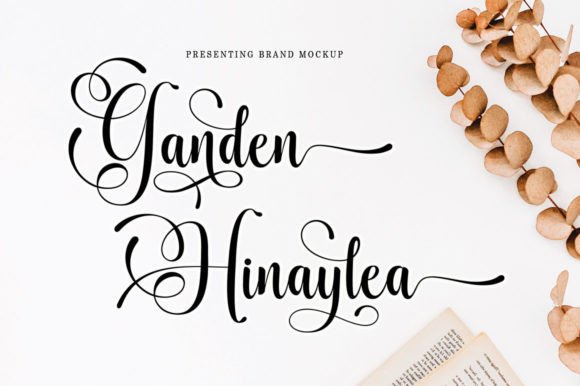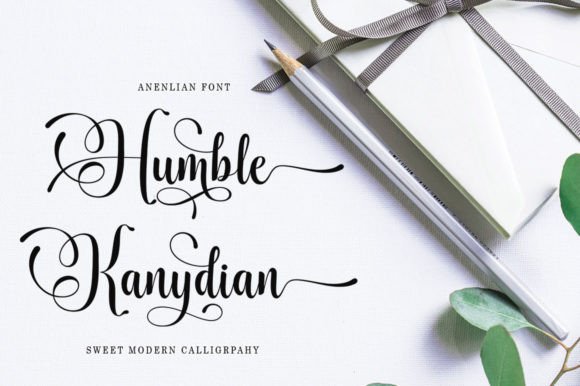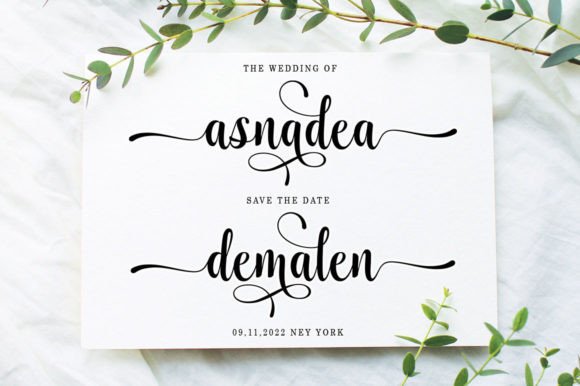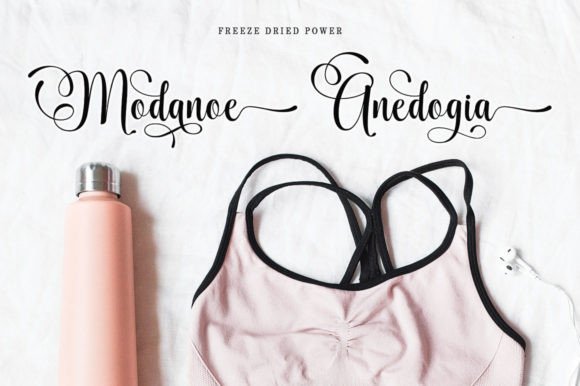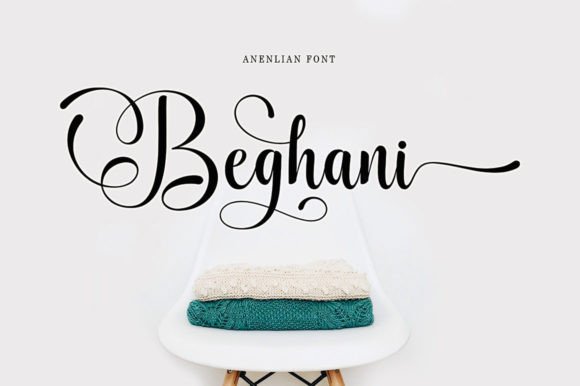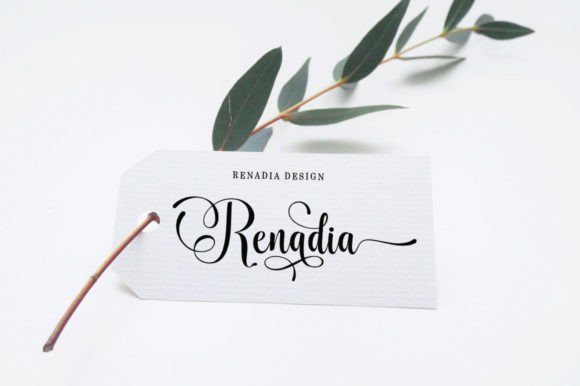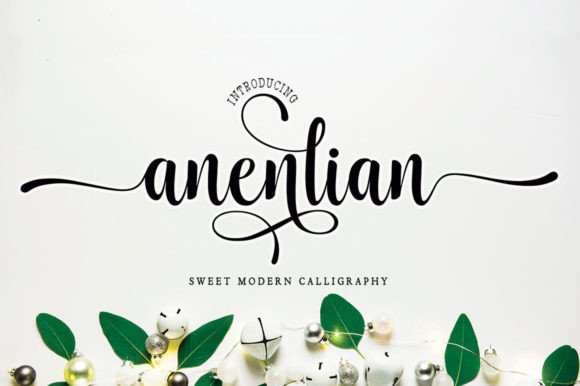
The Designer’s Delight: Anenlian Font
Ah, the quest for the perfect font! I recall a particularly frustrating project where I spent hours searching for a script font that would elevate my design from meh to mesmerizing. My client wanted a luxurious feel, but everything I found was either too bland or too over-the-top. That’s when I stumbled upon Anenlian, a dazzling script font that has since become a staple in my font library.
So, what makes Anenlian so special? Let’s dive into the good stuff!
• ✨ Exquisite craftsmanship: Anenlian is meticulously designed, with intricate details that make it a joy to use.
• ✅ Versatility: Whether you’re working on a branding project, a wedding invitation, or a social media graphic, Anenlian adapts seamlessly.
• 💡 PUA encoded: This means you can access all glyphs and swashes with ease, giving you endless creative possibilities.
Of course, no font is perfect, and Anenlian has a few minor quirks:
• 🤔 Occasional kerning issues: As with any script font, you might need to adjust kerning for optimal results.
• ⚠️ Limited multilingual support: While Anenlian covers many languages, it might not support every character or script.
The Story Behind Anenlian
While the actual origins of Anenlian are unclear, it’s said to have been crafted by a team of designers passionate about typography. Their goal was to create a font that would inspire creativity and add a touch of luxury to any design. And, judging by the font’s popularity, I’d say they’ve succeeded!
Is Anenlian suitable for body text? While Anenlian is stunning, it’s best used for headlines, titles, or short paragraphs. Its intricate details might make it difficult to read in longer texts.
Is Anenlian available in multiple languages? Anenlian covers many languages, but it might not support every character or script. Check the font’s documentation for specific language support.
In conclusion, Anenlian is a stunning script font that can elevate any design project. With its exquisite craftsmanship, versatility, and PUA encoding, it’s a valuable addition to any font library. Whether you’re a seasoned designer or a creative hobbyist, Anenlian is sure to inspire your next project!